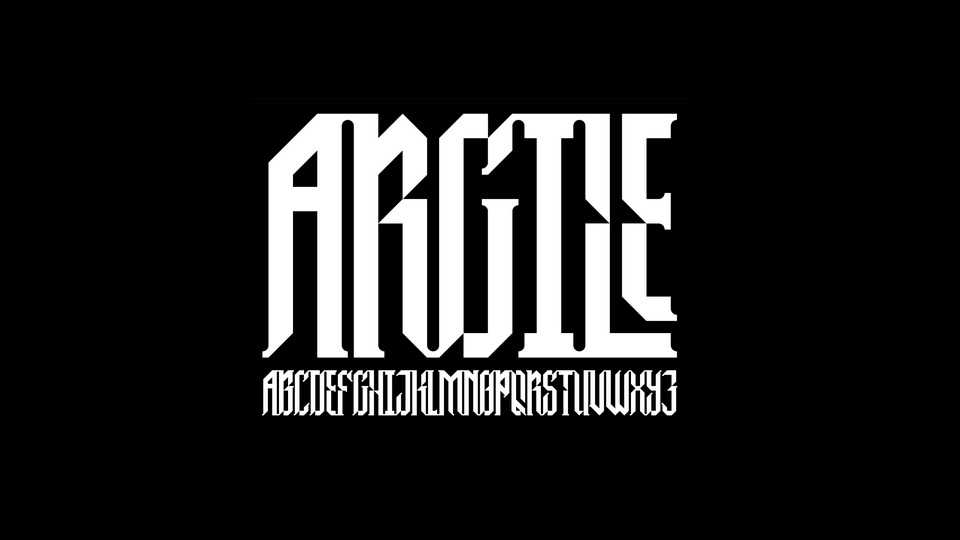
Download Terrible font, a unique modular tall and sharp display typeface. Terrible font perfectly fits for posters, headlines, short statements and other artworks.
Designer: Charlie Le Maignan